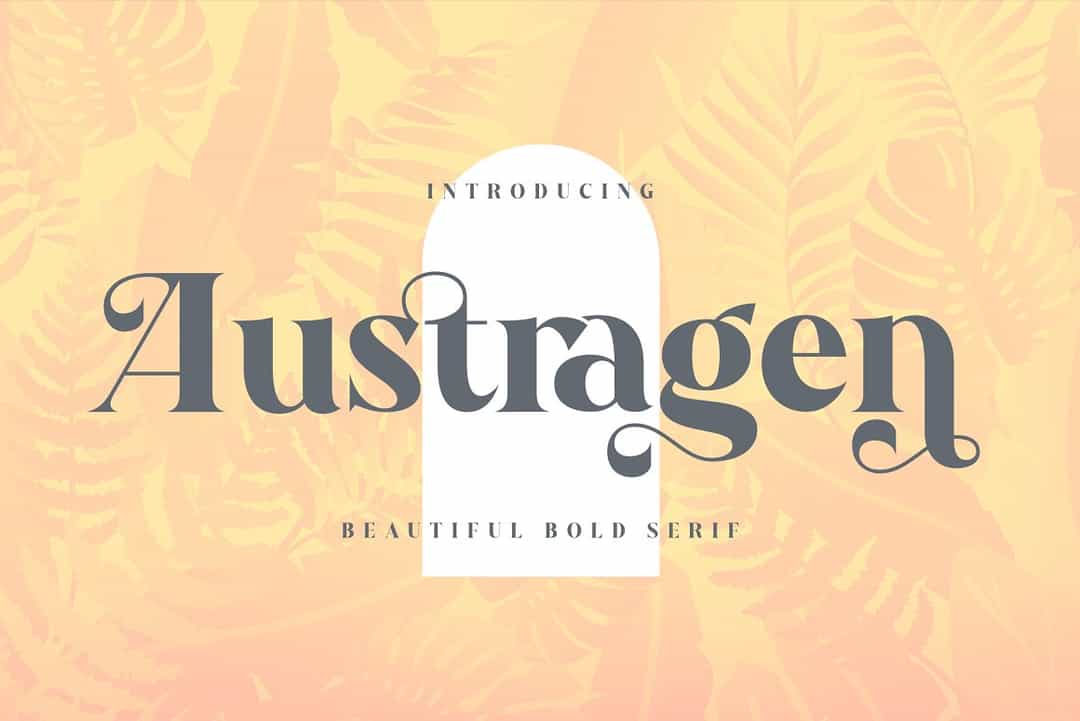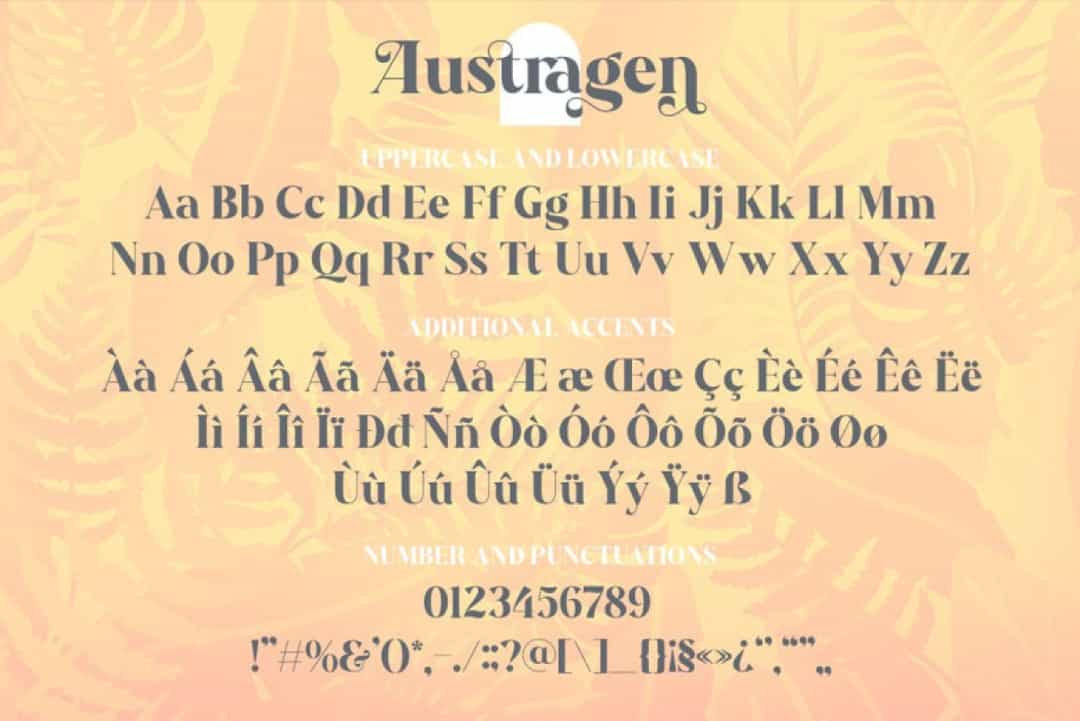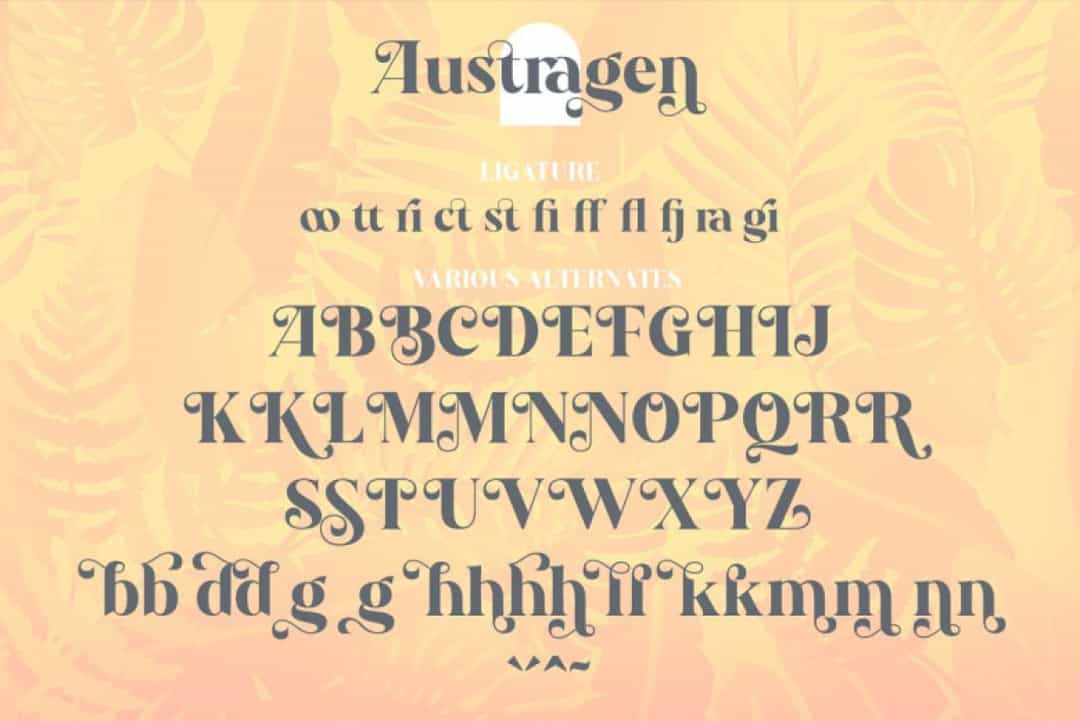
Austragen Serif, inspired by the iconic minimalist logo, is an exciting bold serif font designed to enhance designs of brochures, templates, videos, advertisements, branding logos and much more. Ideal for creating brochures, templates videos advertisements branding logos pull quotes word mark logos monograms pull quotes wordmark logos monograms pull quotes with unique variations, Austragen also includes 11-50 alternative Glyphs as well as punctuation marks and numbers which makes this font truly amazing.